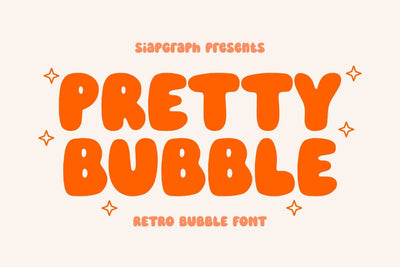
Pretty Bubble - Retro Bubble Font
Pretty Bubble is a fun retro bubble display font. font inspired by birthday invitation typography. This font is perfect for various designs that are retro, fun, cute and bubbly. This font is perfect for t-shirt designs, mugs, planners, interior KDPs, journals, invitations, cards, sublimation, apparel, SVG, Cricut, silhouette, laser, laser cut, quotes, wall art, pillows, tumblers, stickers, and many more another. Apart from that, it is also suitable for Christmas, Halloween, 3D skinny tumbler, Buddhist, fall, breast cancer, Thanksgiving, mini calendar, football, ghost, procreate, tattoo, pumpkin, stickers, wedding, Halloween svg, dog, coffee, grinch, monogram, box, teacher, baby, disney, autumn, flowers, heart, highland cow seamless, christmas png, birthday, nurse.